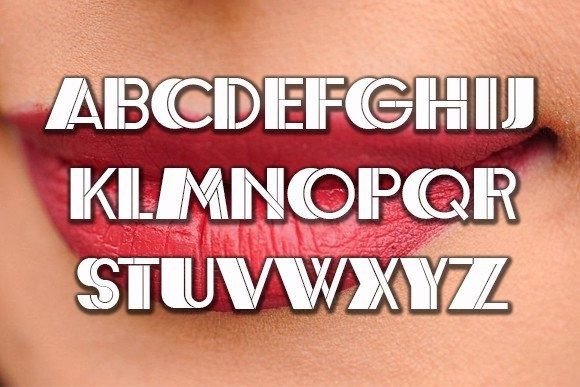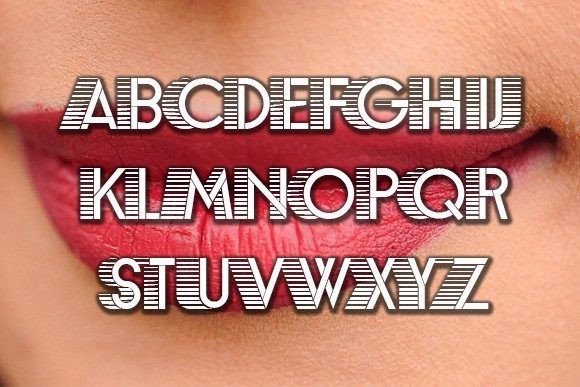
Erotica Font: A Bold and Assertive Display Font for Your Creative Projects
In the world of typography, fonts play a crucial role in conveying the tone and personality of a design. Whether you’re working on a branding project, a website, or a craft, the right font can elevate your creation and make it stand out. If you’re looking for a bold and assertive display font that can add a touch of sophistication and glamour to your designs, look no further than Erotica Font.
What is Erotica Font?
Erotica Font is a stunning display font that is designed to make a statement. With its bold and assertive style, this font is perfect for designers and crafters who want to add a touch of elegance and sophistication to their creations. Whether you’re working on a luxury brand, a fashion website, or a high-end craft project, Erotica Font is an incredible asset to have in your font library.
Key Features of Erotica Font
- Bold and Assertive Style: Erotica Font is designed to grab attention and make a statement. Its bold and assertive style is perfect for headlines, titles, and other display text.
- Versatile: Despite its bold style, Erotica Font is incredibly versatile and can be used on a wide range of projects, from luxury brands to fashion websites and craft projects.
- Elegant and Sophisticated: Erotica Font has a touch of elegance and sophistication that makes it perfect for high-end designs and projects.
- Easy to Read: Despite its bold style, Erotica Font is easy to read, making it perfect for use on websites, logos, and other designs where readability is important.
How to Use Erotica Font
Erotica Font is incredibly easy to use and can be incorporated into a wide range of design projects. Here are a few ideas to get you started:
- Logos and Branding: Use Erotica Font to create a bold and assertive logo that makes a statement.
- Websites: Add a touch of elegance and sophistication to your website with Erotica Font.
- Craft Projects: Use Erotica Font to add a touch of glamour and sophistication to your craft projects, such as handmade cards, invitations, and scrapbooking.
- Social Media Graphics: Use Erotica Font to create eye-catching social media graphics that grab attention.
Tips for Pairing Erotica Font with Other Fonts
When pairing Erotica Font with other fonts, it’s essential to choose fonts that complement its bold and assertive style. Here are a few tips to get you started:
- Pair with a Serif Font: Pair Erotica Font with a serif font, such as Times New Roman or Garamond, to create a sophisticated and elegant look.
- Pair with a Script Font: Pair Erotica Font with a script font, such as Lobster or Pacifico, to add a touch of whimsy and elegance.
- Pair with a Sans-Serif Font: Pair Erotica Font with a sans-serif font, such as Arial or Helvetica, to create a modern and clean look.
Erotica Font is a bold and assertive display font that is perfect for designers and crafters who want to add a touch of elegance and sophistication to their creations. With its versatile style and easy-to-read design, Erotica Font is an incredible asset to have in your font library. Whether you’re working on a luxury brand, a fashion website, or a high-end craft project, Erotica Font is sure to elevate your design and make it stand out.